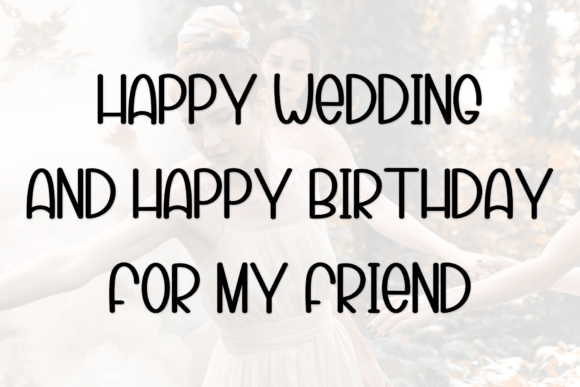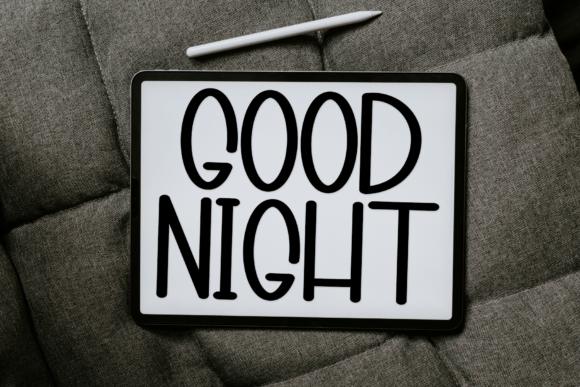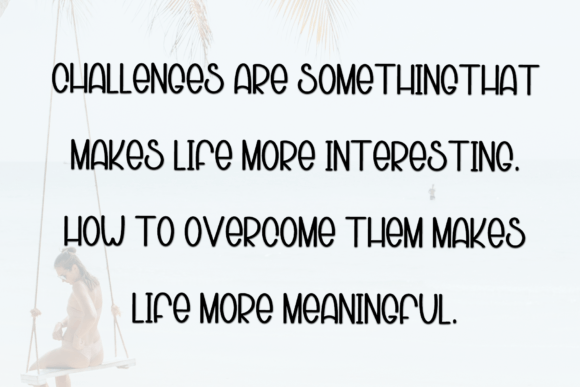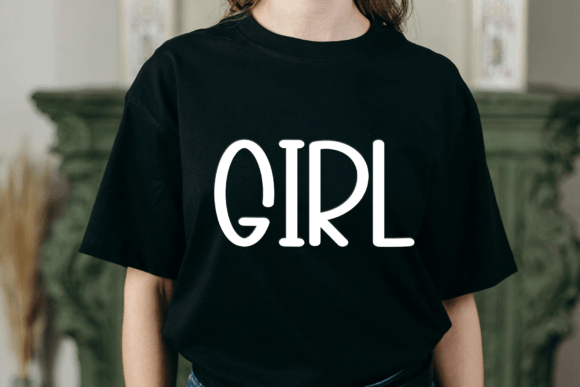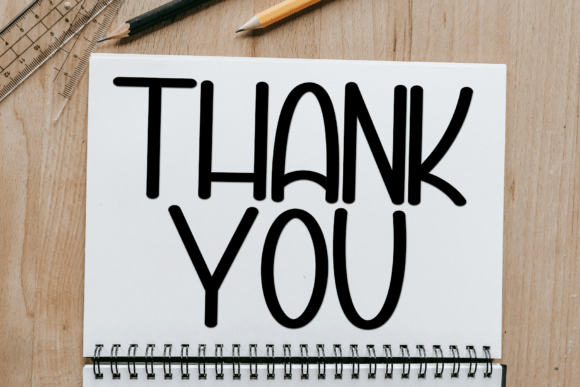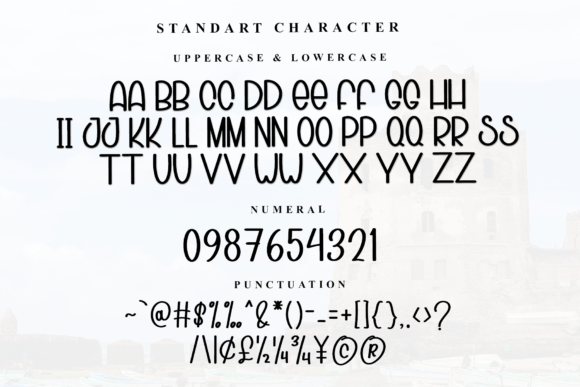
Introduction to Beach Season Font
Have you ever found yourself strolling along the beach, feeling the warm sand between your toes, and capturing the perfect sunset moment with your camera? That’s exactly the kind of feeling you want to evoke with your designs, and that’s where the Beach Season Font comes in.
This lovely and timeless handwritten font is the perfect design resource for creating eye-catching logos, branding, and quotes that will transport your audience to a sunny state of mind. With its unique and beautiful touch, every letter of the Beach Season Font comes alive, making your design project truly special.
Key Features of Beach Season Font
- High-quality, unique design for creative projects and summer-themed graphics
- Font size: 2048 glyphs, allowing for a wide range of creative expressions
- Perfect for designing beach-themed posters, social media graphics, and other summer-inspired content
Honest Review: Beach Season Font
I recently stumbled upon the Beach Season Font, and I must say it’s a fantastic addition to any designer’s toolkit. As a fan of free downloads, I was excited to dive in and explore its features.
What works well: ✨ The Beach Season Font has a very modern and trendy feel to it, making it perfect for any creative project that requires a fresh and fun vibe. The high quality of the font is evident, with smooth lines and a clear, readable design. The transparent background option also allows for seamless integration with any background image or color.
- High quality and modern design
Limitations: ⚠️ While the Beach Season Font is an excellent addition to any design resource, it may not be suitable for projects that require a more formal or traditional feel. Additionally, the font may not be as versatile as some other options on the market.
Overall, I’m very impressed with the Beach Season Font and would highly recommend it to designers looking for a modern and trendy font for their next creative project.
Beach Season Font
Tips for Getting the Most Out of the Beach Season Font
Experiment with different font sizes, colors, and styles to create unique designs.
Combine the Beach Season Font with other design elements, such as images or icons, to create visually appealing graphics.
The Beach Season Font is perfect for:
- Summer-themed designs, such as beach or pool party invitations.
- Travel or adventure-related projects, such as travel brochures or maps.
- Food or drink-related designs, such as menus or recipe cards.
Compared to Beach Season Font, Pacifico has a more refined and polished look, making it suitable for formal events and high-end designs.
Great Vibes is a free download font that offers a fun, beachy vibe, making it a great alternative to Beach Season Font for casual designs. Its high-quality design and transparent background make it suitable for a wide range of creative projects, from social media graphics to merchandise.
Great Vibes is a more casual and laid-back font compared to Beach Season Font, making it perfect for relaxed designs and everyday use.